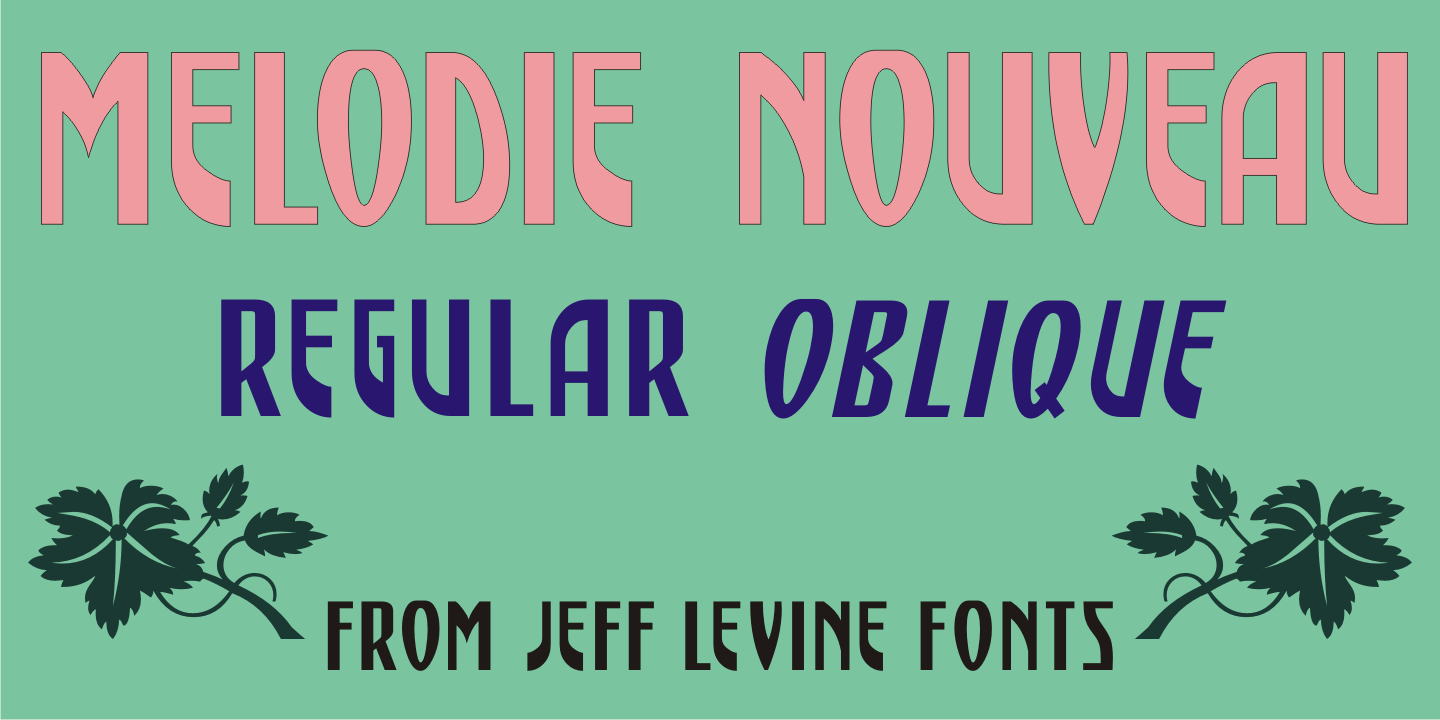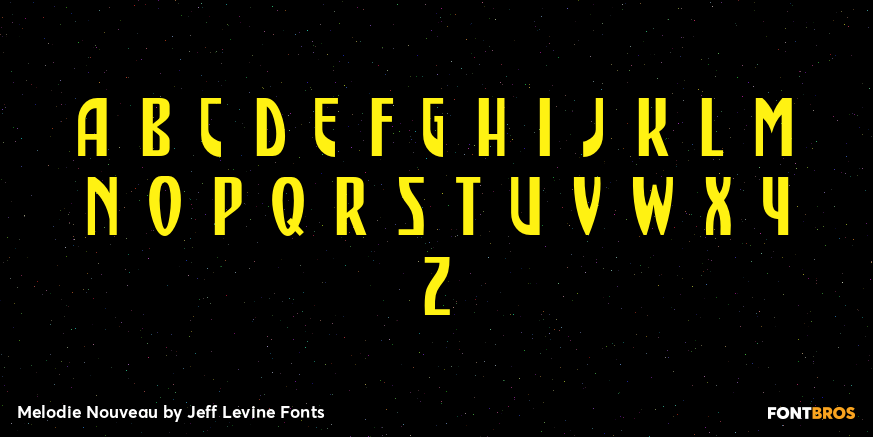
Melodie Nouveau
The Art Nouveau hand lettering on the sheet music for 1915's 'I'm Glad It was Only A Dream” served as the inspiration for Melodie Nouveau JNL, which is available in both regular and oblique versions.